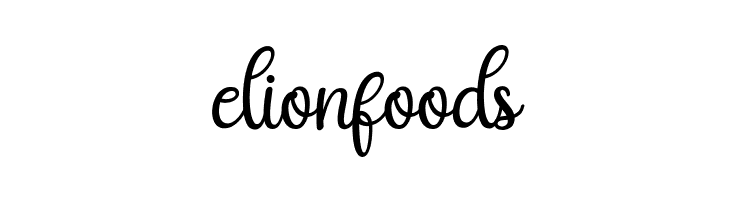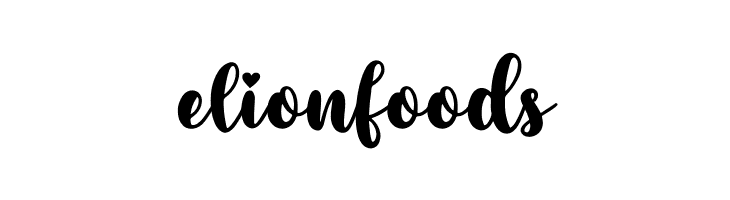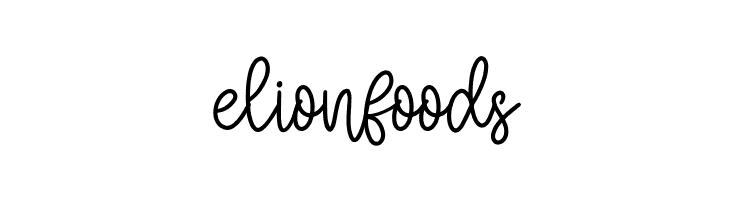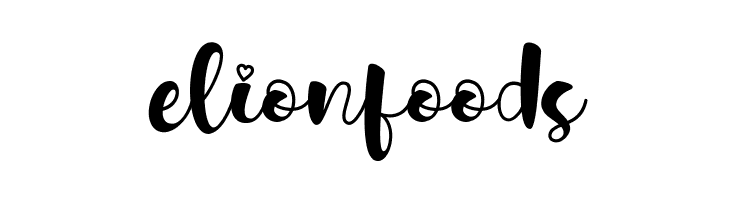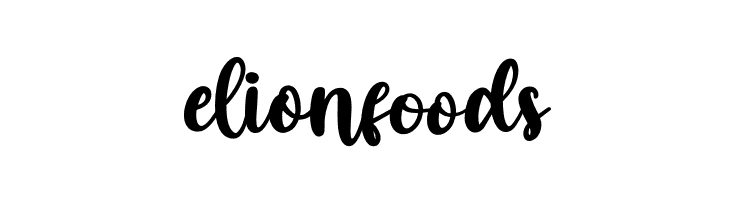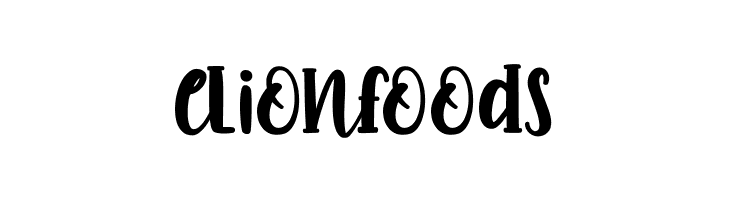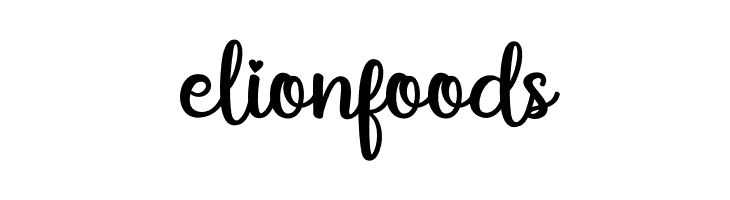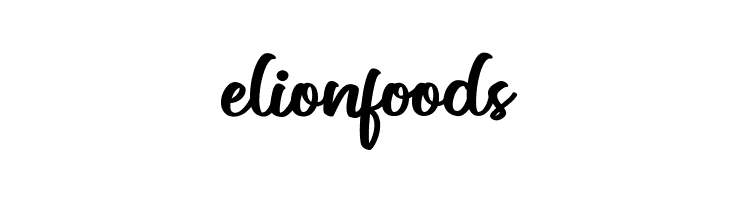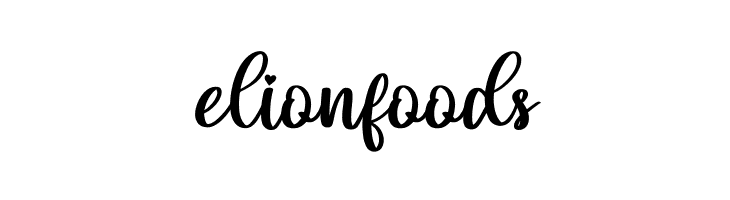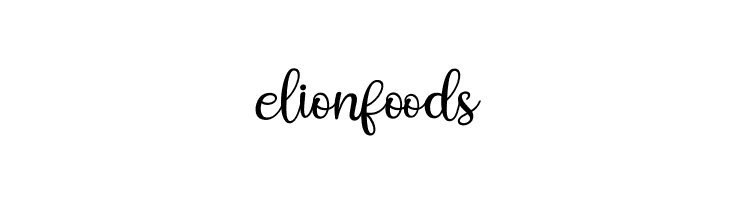
A playful and elegant script font with smooth, rounded edges and a flowing style.
A bold, elegant cursive font with high contrast and decorative swirls.
A festive and elegant script font with a flowing, handwritten style.
A playful, handwritten font with bold and flowing strokes, perfect for informal and creative projects.
A bold, expressive script font with flowing, cursive letterforms.
A bold, playful script font with a handwritten feel and rounded edges.
A playful and whimsical script font with elegant flourishes and interconnected letters.
A cursive, elegant font with interconnected letters and a handwritten style.
A playful and elegant script font with flowing, interconnected letters.
A playful, romantic cursive font with elegant loops and smooth connections.